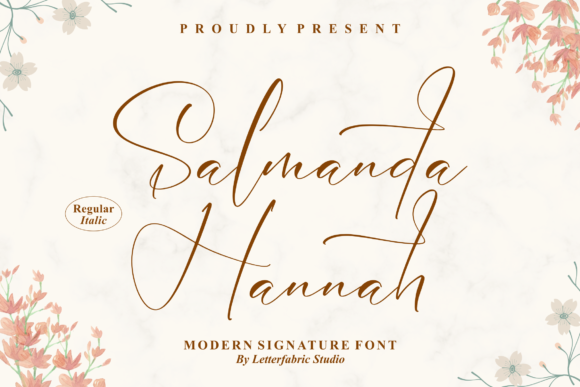
Step into the enchanting world of Salmanda Hannah, a captivating script font that will ignite your creativity and transform your designs. Crafted by the masterful Letterfabric, this extraordinary font exudes a touch of elegance and charm that is sure to leave a lasting impression.
With Salmanda Hannah, you hold the key to unlocking a world of possibilities. Its versatility knows no bounds, making it the perfect choice for an array of projects. Whether you seek to create captivating logos that command attention, elevate branding projects with a touch of sophistication, or adorn homeware designs with a personal touch, this font will effortlessly elevate your creations.
Imagine your products adorned with Salmanda Hannah's graceful curves and intricate details. Picture your packaging transformed into captivating works of art, enticing customers with their irresistible allure. Envision your mugs, quotes, and posters imbued with a timeless elegance that will resonate with hearts and minds alike.
Salmanda Hannah's meticulously crafted swashes and glyphs, effortlessly accessible through PUA encoding, provide endless opportunities for customization and creativity. Each stroke, each flourish, is a testament to the font's exceptional quality, ensuring that your designs will stand out from the crowd.
Indulge in the beauty of Salmanda Hannah, and unleash your imagination. Let its enchanting script guide your hand as you create designs that captivate, inspire, and ignite the senses. Experience the transformative power of this extraordinary font today, and elevate your creations to new heights of artistry and excellence.